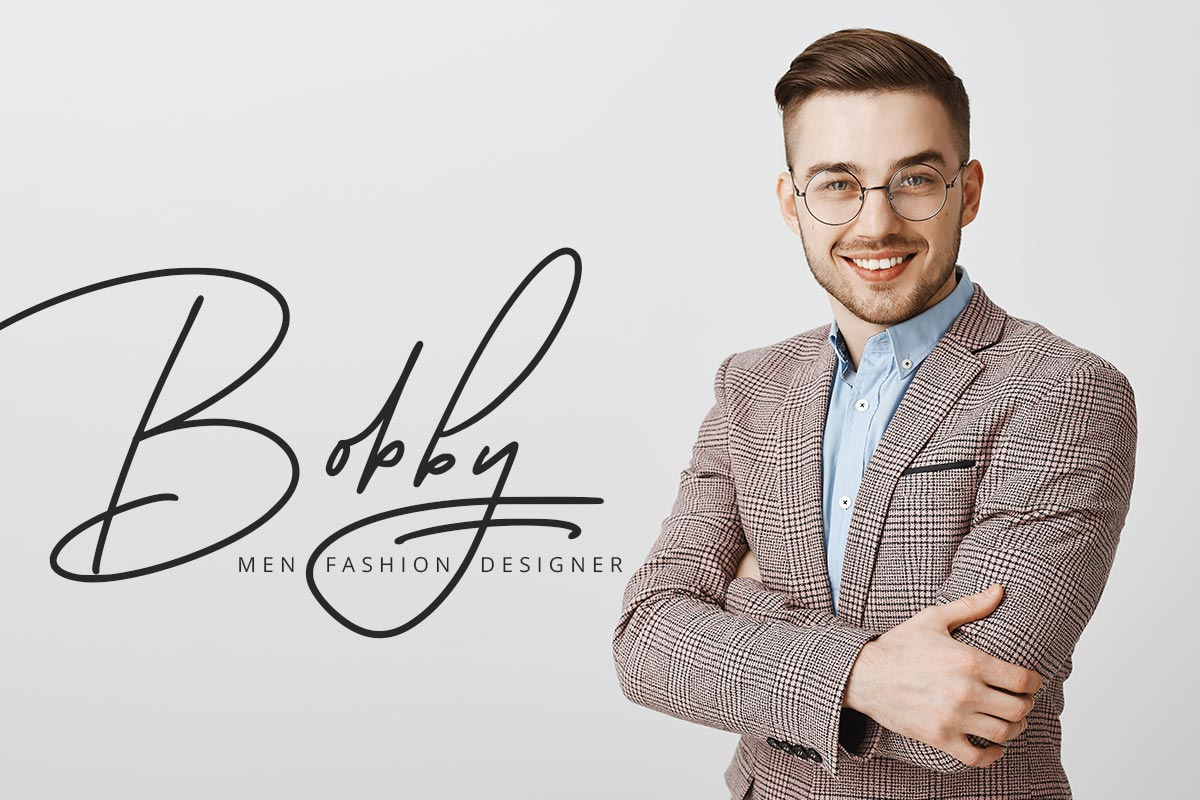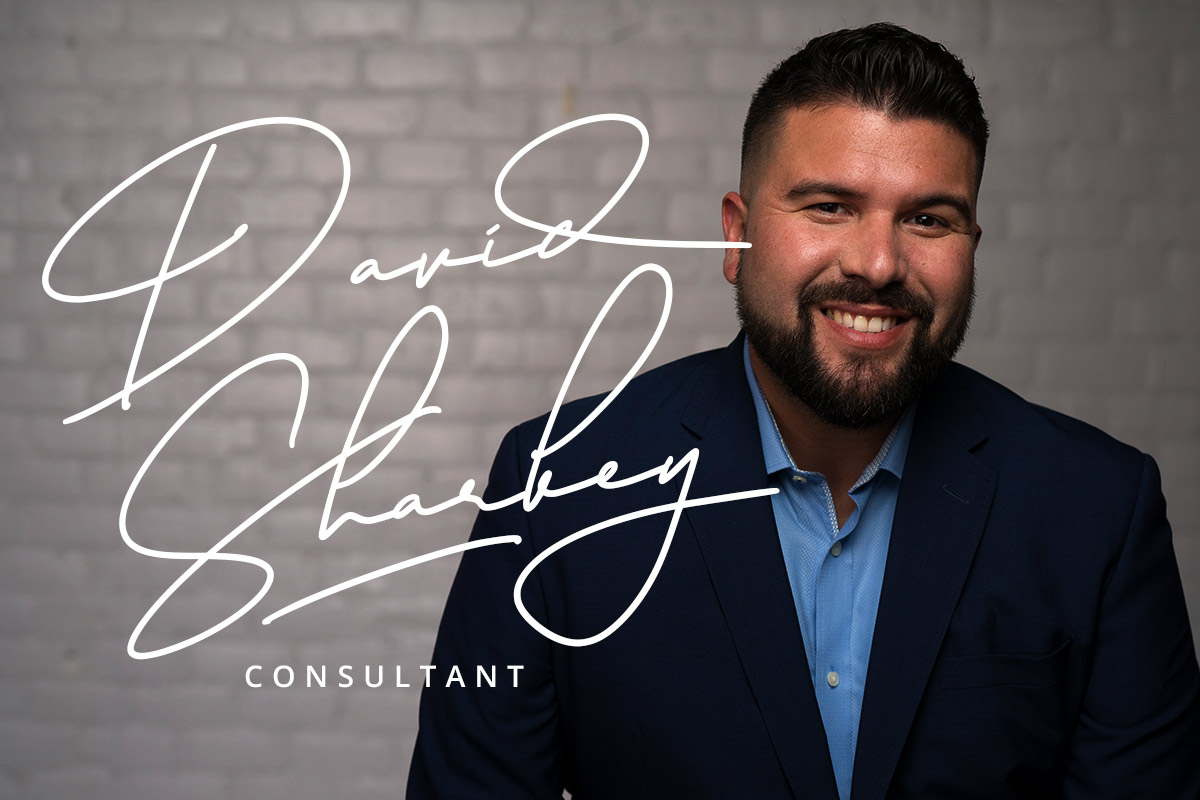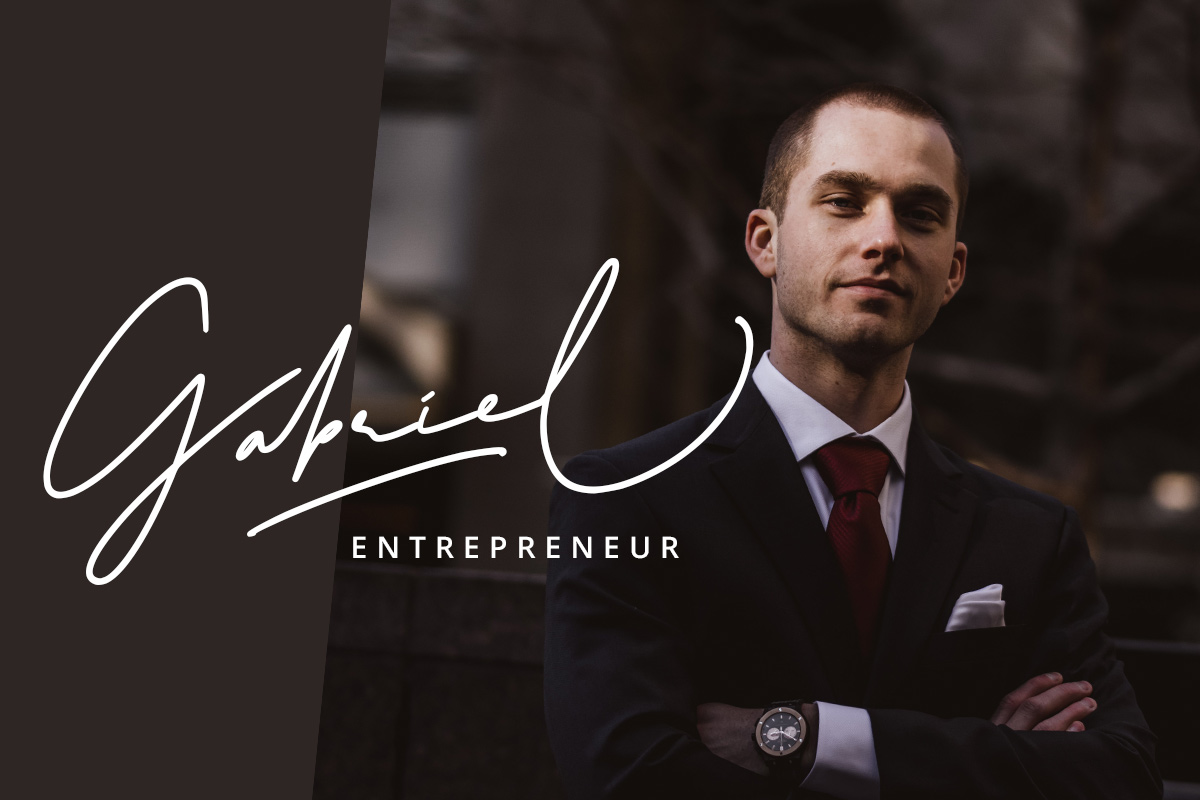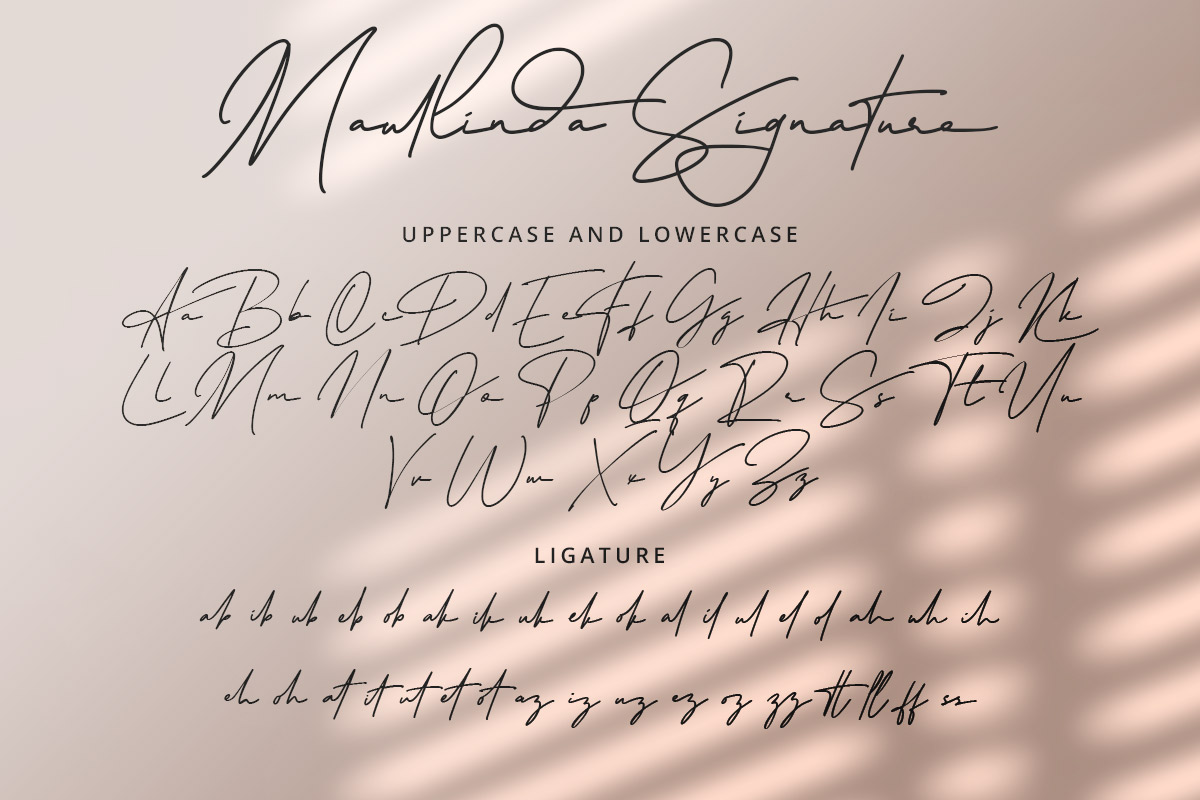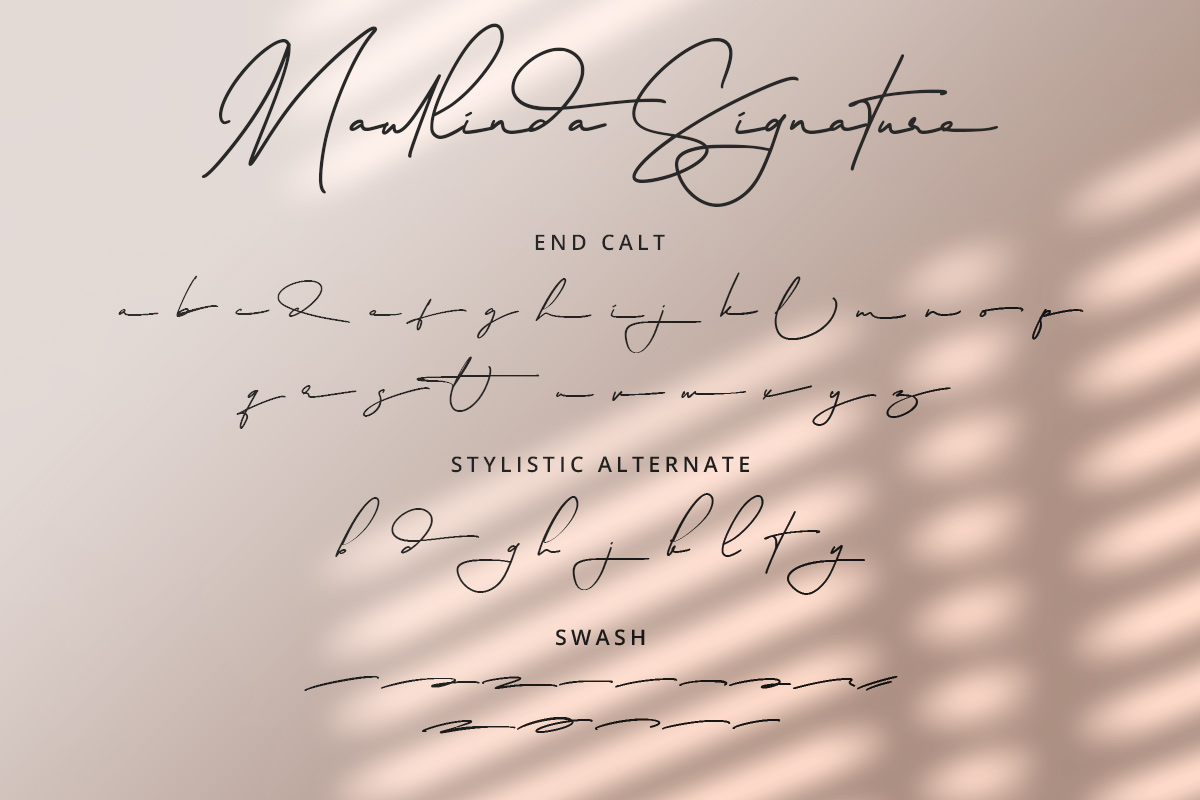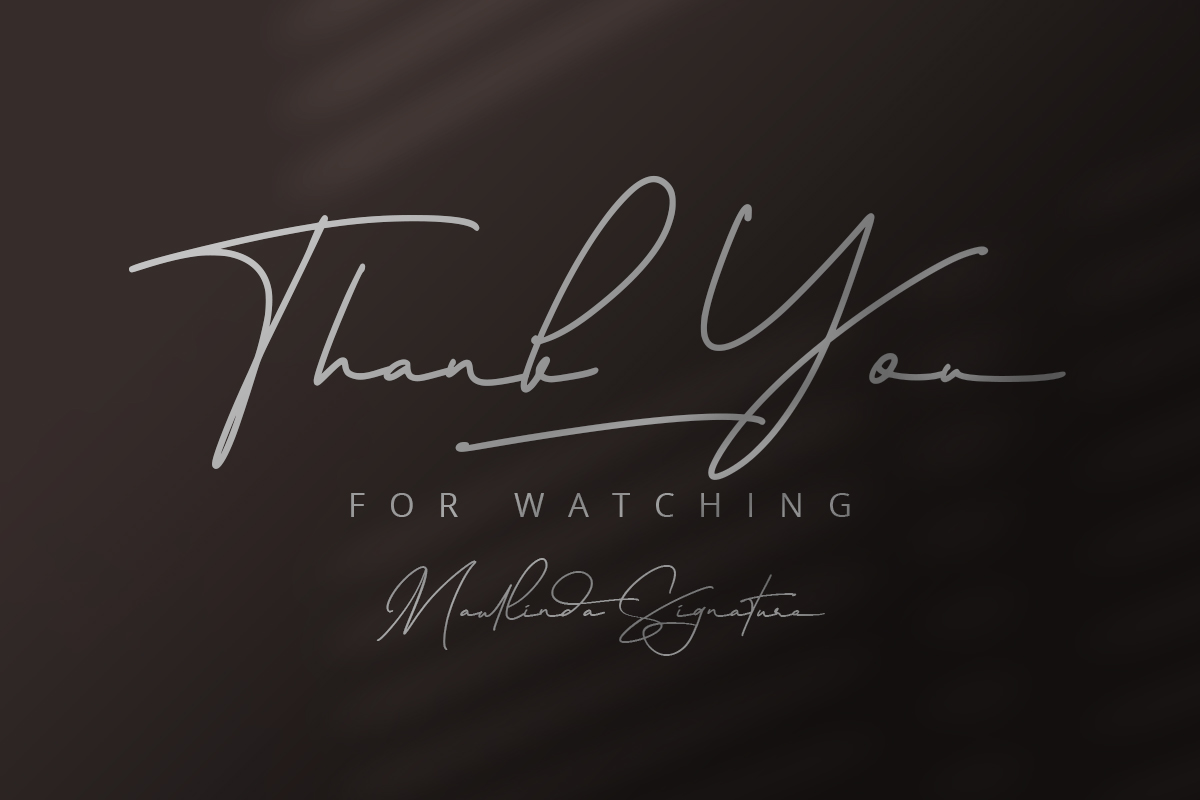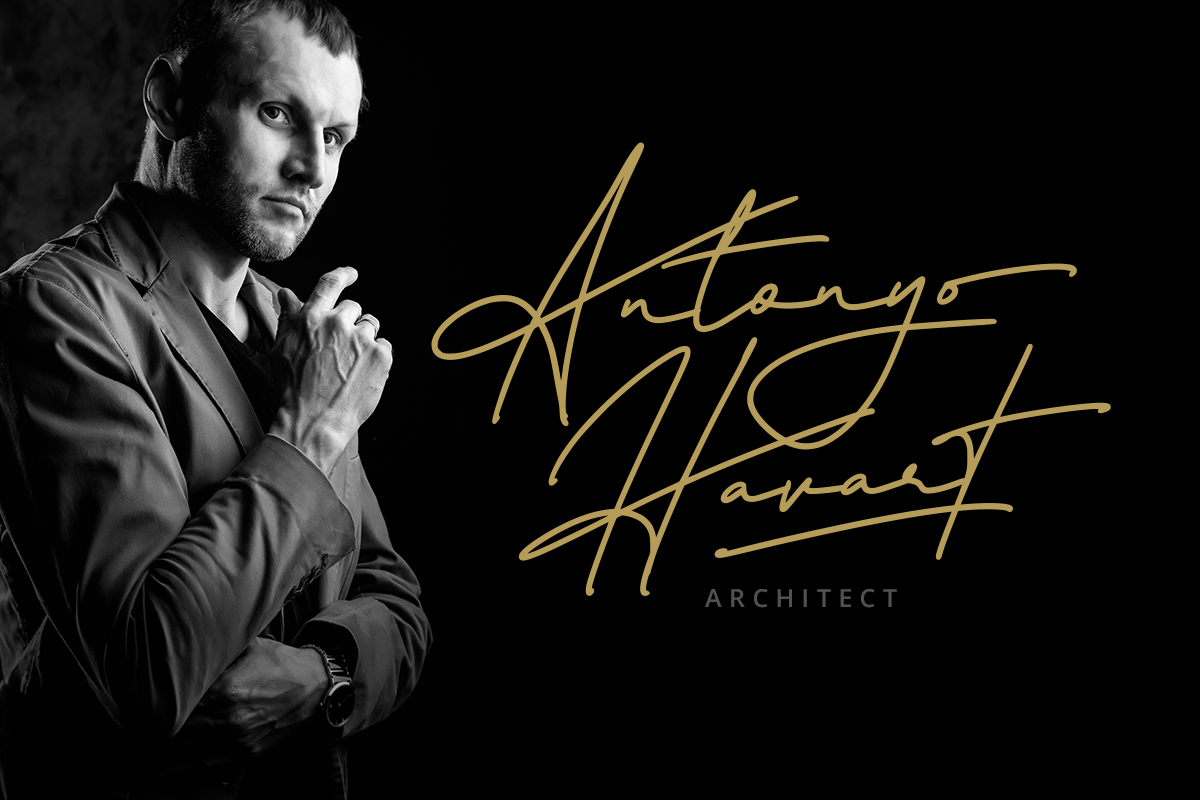
Maullinda Signature Font The handwritten script font, Maullinda Signature Font is a combination of modern fonts and handwritten fonts with an elegant and likable appearance. A brush pen is used to create the font, so the beauty shines through and is real. The brush used in this font is medium-tipped, so the resulting strokes are long, thin, curved, and continuous. This type of font is the best font to use at formal events like graduation days, gender parties, and baby showers. You can also use it on invitations, letters, souvenirs, or thank you cards. Maullinda Signature Font will impart a simple yet elegant appeal to all who see it. From that explanation, Maullinda Signature Font is cool font. For formal occasions like the art exhibition, you can use our Maullinda Signature Font on show titles, team t-shirts, signage, and other items. This font can be applied as a digital font or print font. Combined with the right theme, supporting images, and atmosphere, the beauty of this font will radiate like sunlight that illuminates a room. Maullinda Signature Font is the best font for branding fashion and beauty products. It can be placed on packaging, the web, brand tags, and magazine covers. The Script & Signature fonts collection is used as Figma Fonts, Canva Fonts, Freepik Fonts, and Adobe Fonts. They also work as Windows Fonts and Apple Fonts. For your social media needs, you can use and install fonts in our Script & Signature font collection to use as Instagram Fonts, Facebook Fonts, and Twitter Fonts.